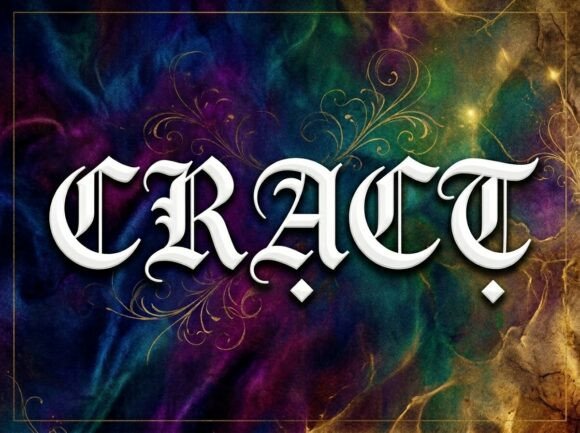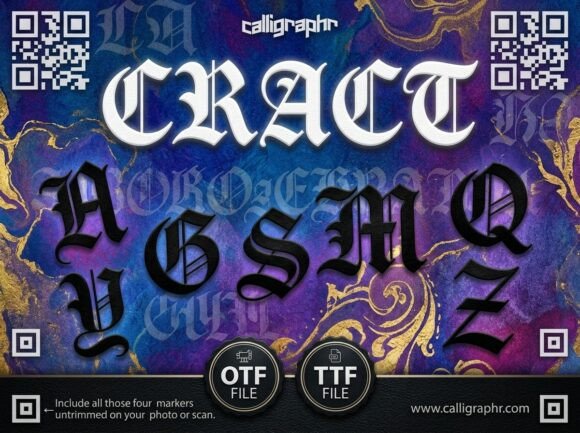
The Crack Font: A Stunning Decorative Display Font to Elevate Your Designs
Have you ever been in the middle of a design project, pouring your heart and soul into it, only to hit a roadblock when it comes to finding the perfect font? I recall a particularly frustrating experience when I was working on a logo design for a client who wanted something bold, artistic, and attention-grabbing. After scouring the internet for hours, I stumbled upon the Crack Font, and it was love at first sight! In this article, we’ll dive into the world of Crack Font, exploring its features, uses, and everything in between.
A Personal Encounter with Crack Font
As a designer, I’ve had my fair share of font struggles. But when I discovered Crack Font, I knew I’d found something special. This decorative display font is designed to be the center of attention, and with its unique artistic elements and strong visual personality, it’s perfect for creators who want to break away from the ordinary.
What Makes Crack Font So Special?
Crack Font is a versatile font that’s perfect for bold headlines, artistic logos, and creative packaging. It maintains a professional and polished finish, making it suitable for a wide range of design projects. Here are some of its standout features:
- ✨ Unique artistic elements that add a touch of personality to your designs
- ✅ Strong visual personality that grabs attention
- 💼 Versatile enough for various design projects, from bold headlines to artistic logos
An Honest Review: The Good and the Quirks
While Crack Font is an amazing decorative display font, it’s essential to note its limitations. Here’s what I love and what you should be aware of:
- ✨ Its unique artistic elements and strong visual personality
- ✅ The font’s versatility and professional finish
- ⚠️ Crack Font is an ALL-CAPS (Uppercase Only) display typeface, which means it doesn’t include lowercase letters.
- 🤔 This font is specifically designed for high-impact headlines, logos, and decorative initials, so it might not be the best choice for body text or lengthy paragraphs.
The Designer Inspiration Behind Crack Font
Crack Font was designed with the intention of creating a unique, attention-grabbing decorative display font. The designer’s goal was to craft a font that’s both artistic and professional, making it perfect for creators who want to elevate their designs.
| Q: Is Crack Font suitable for body text or lengthy paragraphs? | A: No, Crack Font is specifically designed for high-impact headlines, logos, and decorative initials. It’s not recommended for body text or lengthy paragraphs. |
| Q: Does Crack Font include lowercase letters? | A: No, Crack Font is an ALL-CAPS (Uppercase Only) display typeface and does not include lowercase letters. |